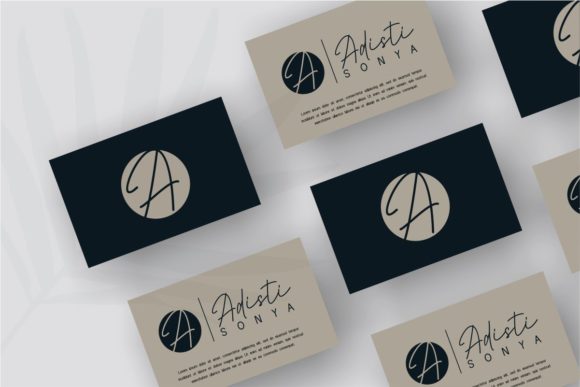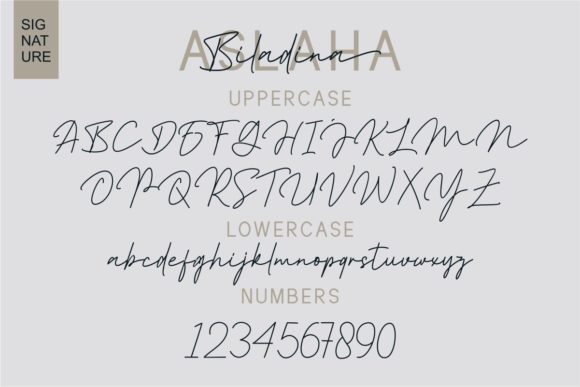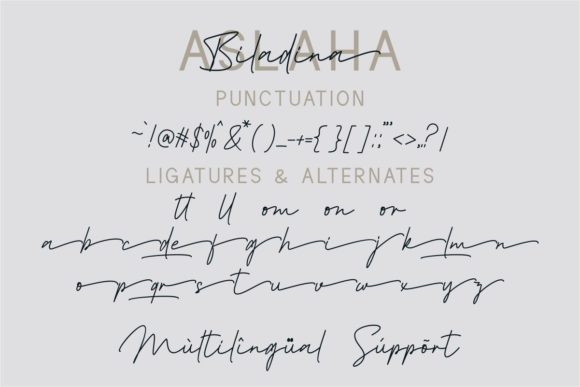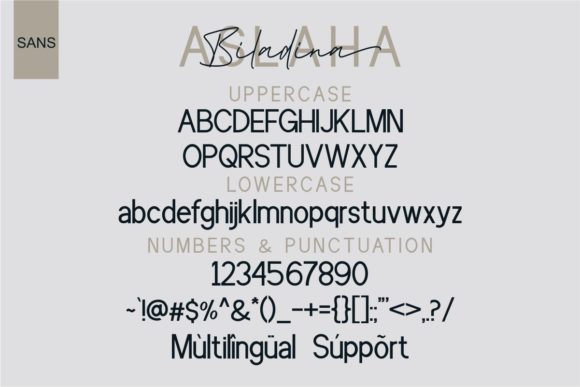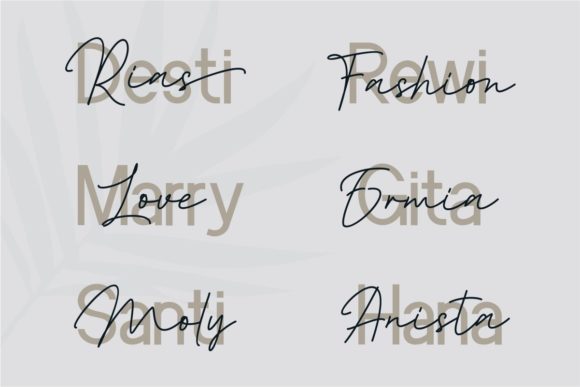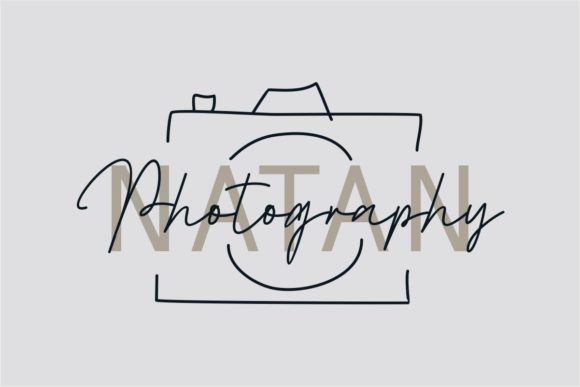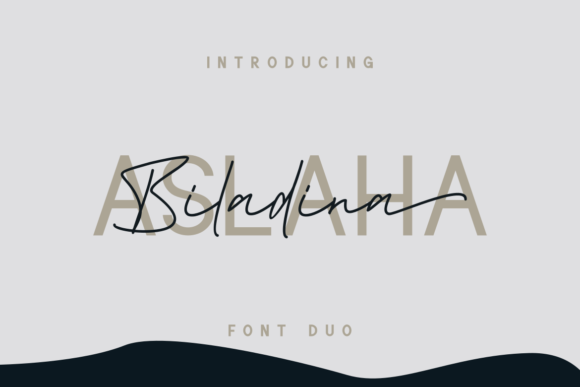
The Ultimate Guide to Aslaha Biladina Font: Elevate Your Designs with Chic and Cheery Style
I’ll never forget the time I was working on a project for a client’s wedding invitation suite. I had spent hours agonizing over the perfect design, but something was missing – the right font. That’s when I stumbled upon Aslaha Biladina, a game-changing duo of fonts that instantly elevated my design from meh to mesmerizing. In this article, I’ll share my love for Aslaha Biladina, its features, and how to make the most of it in your designs.
An Honest Review of Aslaha Biladina
- ✨ Perfect Pairing: Aslaha Biladina consists of two fonts that complement each other perfectly, making it easy to add a chic and cheery touch to your crafts.
- ✅ PUA Encoding: This font is PUA encoded, which means you can access all glyphs and swashes with ease, giving you endless creative possibilities.
- 💫 High Versatility: Whether you’re designing wedding invitations, party decorations, or social media graphics, Aslaha Biladina adapts to any style or theme.
While Aslaha Biladina is an amazing font, there are a few things to keep in mind:
- ⚠️ Glyph Overload: With so many glyphs and swashes available, it’s easy to get overwhelmed. Take some time to explore the font and plan your design before diving in.
- 🤔 Pairing with Other Fonts: While Aslaha Biladina is stunning on its own, pairing it with other fonts can be tricky. Experiment with different combinations to find the perfect match.
A Practical Guide to Using Aslaha Biladina
The Backstory Behind Aslaha Biladina
Aslaha Biladina was designed with the intention of creating a beautiful, versatile font that would inspire creativity and joy. The designers aimed to craft a font that would be perfect for a variety of projects, from weddings to social media graphics. With its elegant lines and playful swashes, Aslaha Biladina has become a favorite among designers and crafters alike.
PUA (Private Use Area) encoding allows font creators to include additional glyphs and characters that aren’t part of the standard Unicode range. This means that Aslaha Biladina users can access a wide range of swashes, glyphs, and alternates, making it easier to create unique and creative designs.
Q: Is Aslaha Biladina suitable for body text?
While Aslaha Biladina is a stunning font, it’s primarily designed for display purposes. For body text, you may want to consider a more legible font. However, feel free to experiment and find the perfect combination for your design.